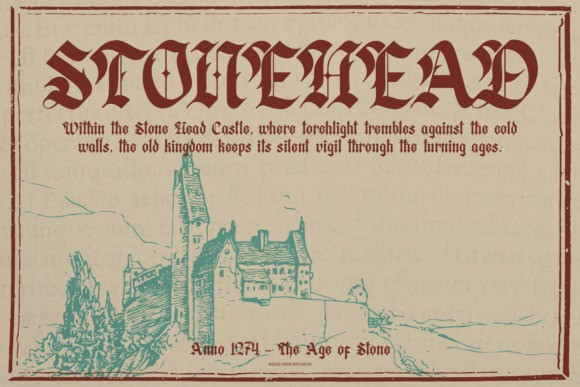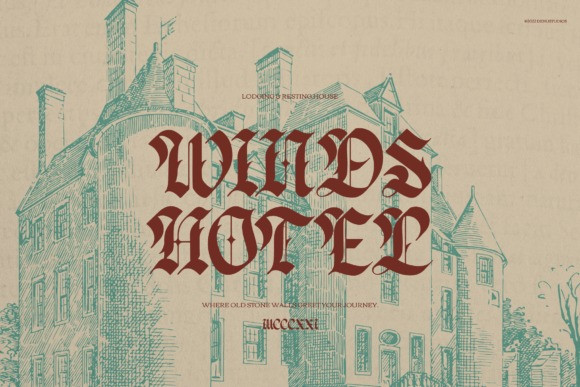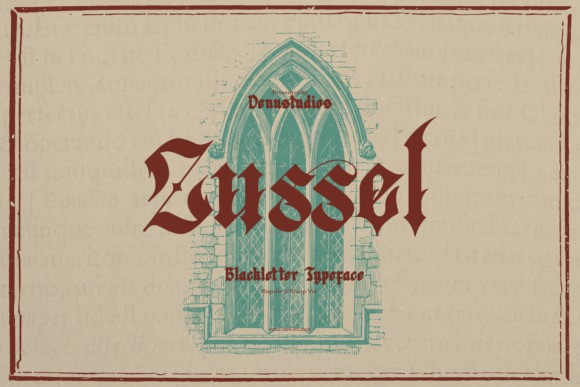
Zussel Font
Zussel Font is a commanding Blackletter Typeface that instantly transports your design to a realm of medieval drama, gothic mystique, and traditional craftsmanship.This striking font is characterized by its heavily inked, ornate letterforms, sharp angles, and dramatic texture, making it an essential tool for projects demanding a historical or intense atmosphere.
The Zussel Blackletter Typeface is perfect for applications requiring a dramatic, authoritative look, such as album artwork for rock or metal bands, historical document recreation, high-end beer or spirits labeling, and classic fantasy or gaming titles. The Zussel font is a powerful choice for creating impactful, custom logos and headers that require depth and a strong connection to historic aesthetics.
This sharp blackletter font leaves an indelible, dramatic impression.